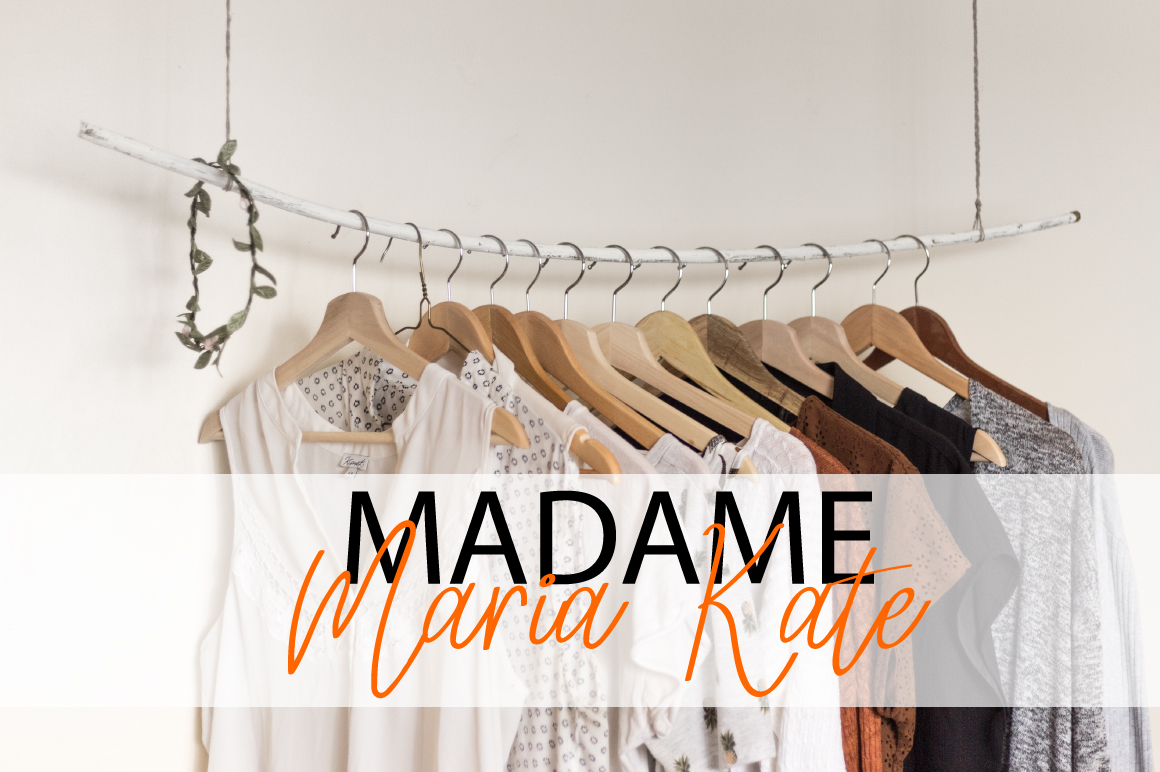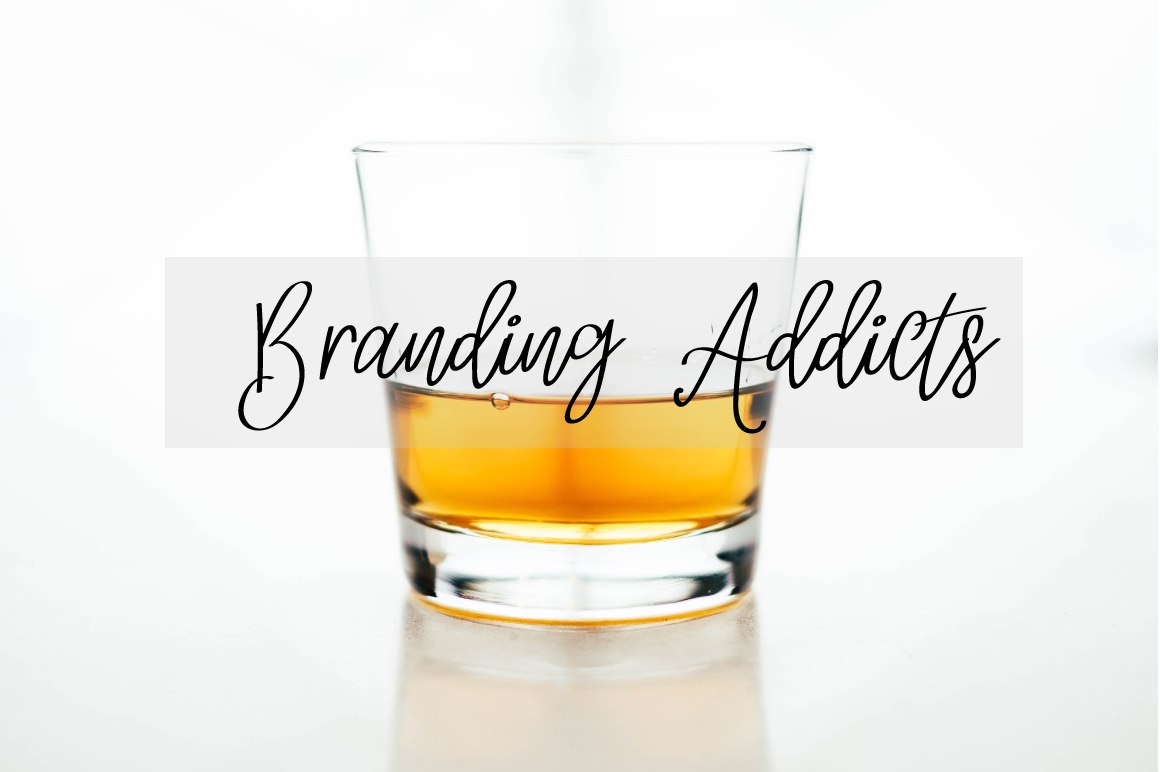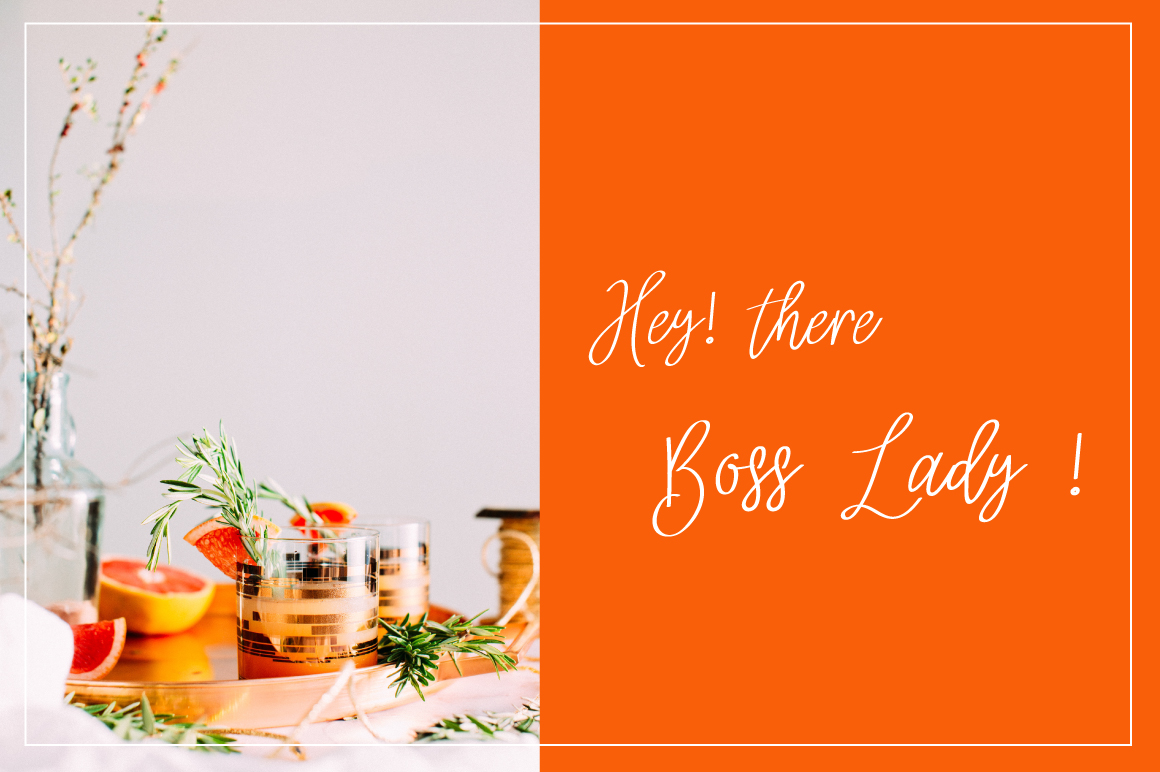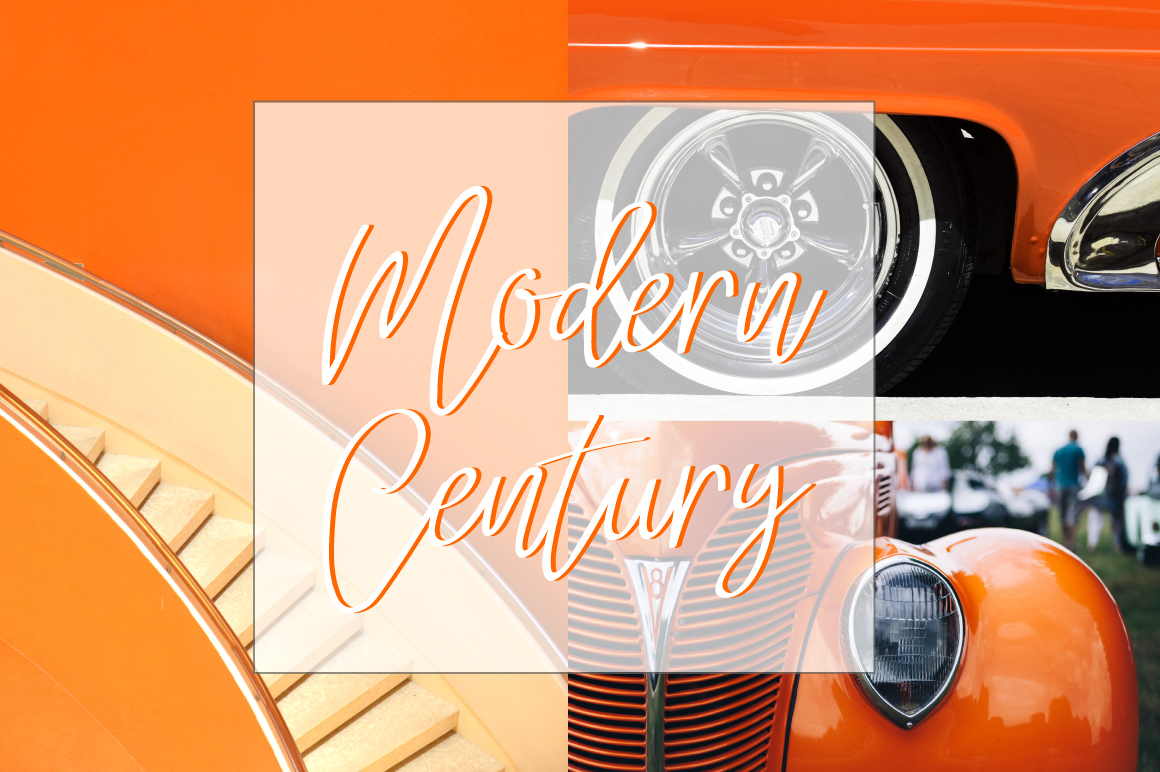
Introduction to Rwanda Font Font
Fonts play a crucial role in design, and the Rwanda Font font is a typeface that brings both character and versatility to any project. Whether you’re working on a branding project, a website, or a print design, the Rwanda Font font offers a unique style that can elevate your work.
This handwritten, beautifully crafted script font is a great way to amplify your designs.
Rwanda is both bubbly and variable, and is a great way to keep your designs on trend Download Rwanda, a remarkable script font.
Key Features of Rwanda Font Font
Why Choose Rwanda Font Font?
The Rwanda Font font is more than just a typeface – it’s a design tool that helps you communicate your message with style and clarity. Its unique character set and versatile design make it suitable for a wide range of applications, from elegant invitations to bold headlines.
With its carefully crafted letterforms and balanced proportions, the Rwanda Font font ensures readability and visual appeal across all mediums.
What makes Rwanda Font font special?
The Rwanda Font font stands out with its unique design, exceptional readability, and versatility across various design applications.